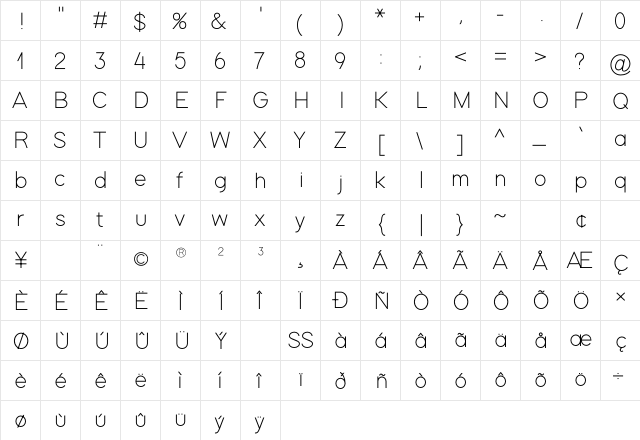
Modern Sans Light
Design Context for Modern Sans Typeface
Modern Sans is a composed and adaptable typeface that performs quietly and consistently across a wide range of design contexts. Its slender proportions lend an understated elegance to any composition.
Pro Tip: Pair Modern Sans with a font of contrasting weight or personality to build a more expressive typographic hierarchy.